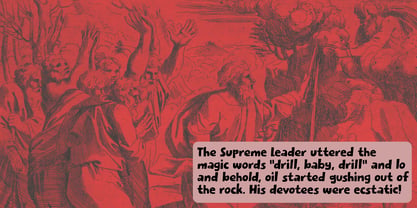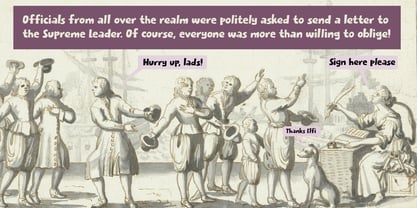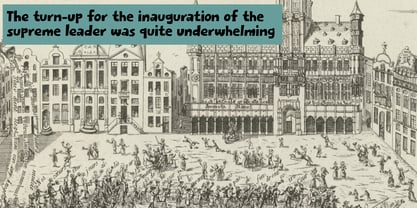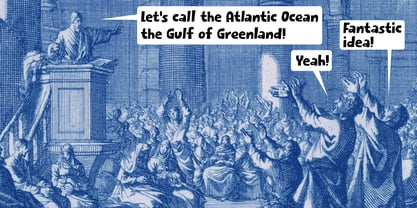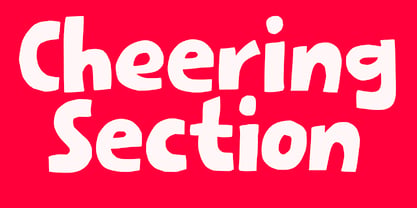
Cheering Section Pro
La familia tipográfica Cheering Section Pro fue diseñada por David Kerkhoff y publicada por Hanoded. Cheering Section Pro contiene 2 estilos y opciones de paquete familiar. Más información sobre esta familia
Cheering Section is a really nice, handmade ‘comic style’ font. It is loud and clear, making your product packaging or your book covers stand out. Of course, this font family has more tricks up its sleeve. Maybe you're into creating posters and banners - well, then Cheering Section will cheer you on!. Comes with a full set of contextual alternates that cycles as you type.